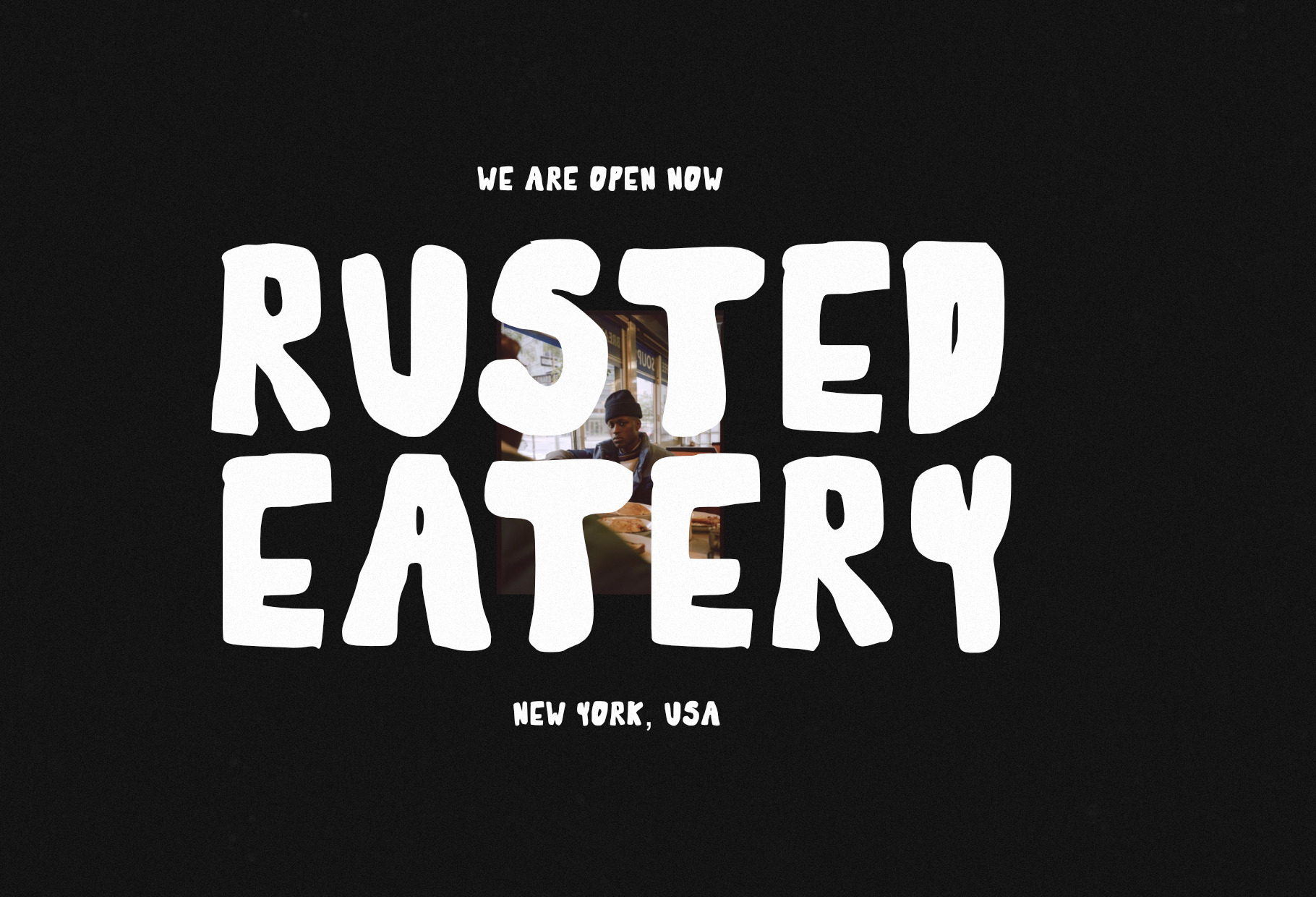
Rusted Eatery Bold Display Font
Rusted Eatery is a bold display typeface with a rugged, vintage-inspired character designed to bring a strong, authentic, and slightly distressed personality to your designs. Its heavy letterforms and eye-catching style make it perfect for projects that need a bold visual statement with a rustic, industrial, retro, or handcrafted feel.
Perfect for branding, packaging, posters, food and beverage designs, apparel, signage, logos, labels, merchandise, and creative advertising.
Restaurant & Food Branding
Food & Beverage Packaging
Vintage Labels & Badges
T-Shirt & Apparel Design
Retro & Vintage Posters
Signage & Typography
Cafe & Restaurant Branding
Rustic & Industrial Designs
Gaming & Esports Graphics
Advertising & Promotional Design
Logo & Brand Identity
Bold and impactful display lettering
Rugged, vintage-inspired aesthetic
Great for headlines and large typography
Suitable for both digital and print projects
Versatile for branding, packaging, apparel, posters, and merchandise
Easy to use for creative and commercial design projects
Bring a bold, rustic, and memorable personality to your next creative project with Rusted Eatery Bold Display Font.